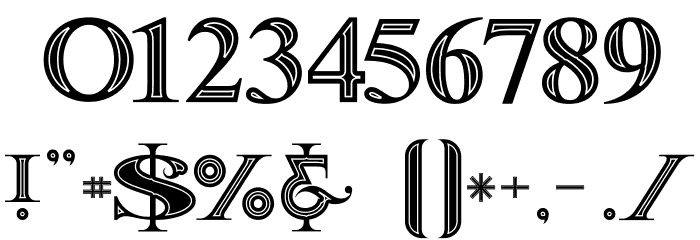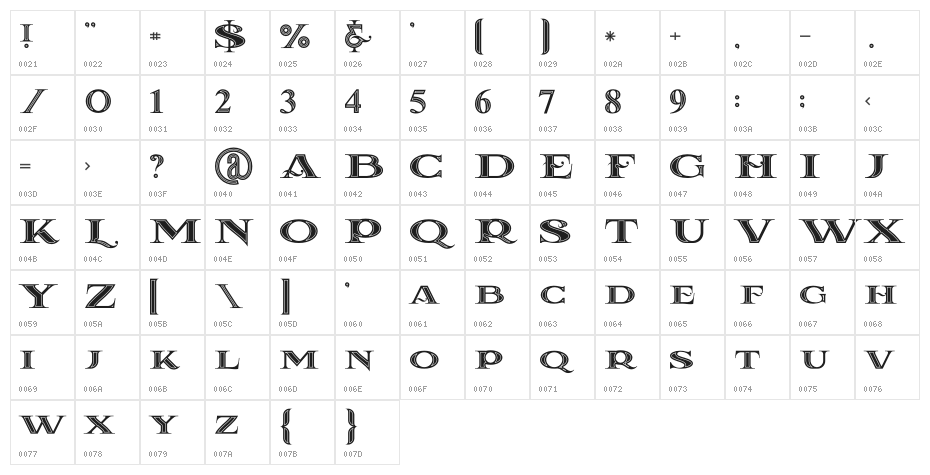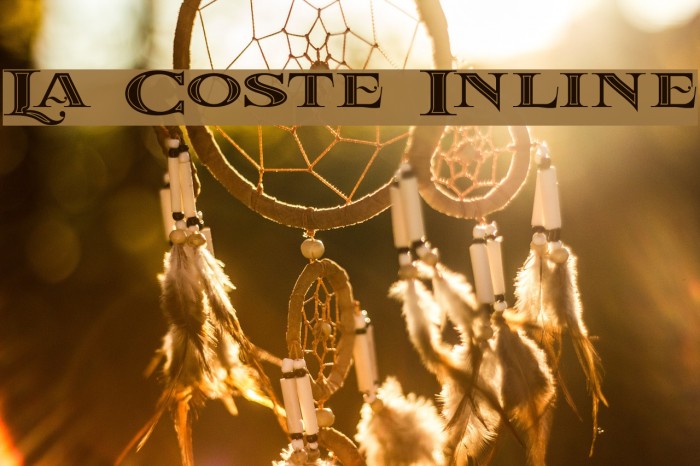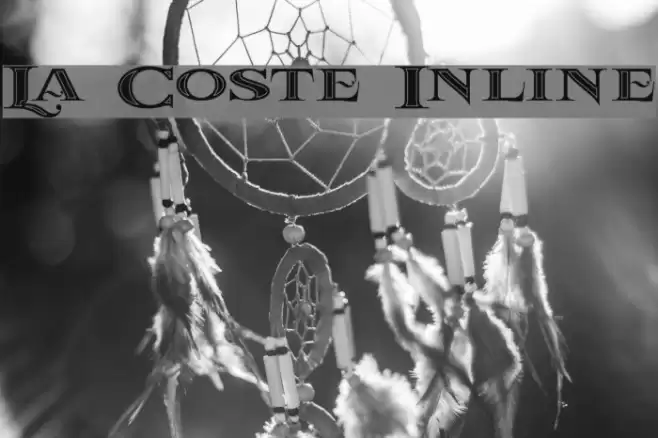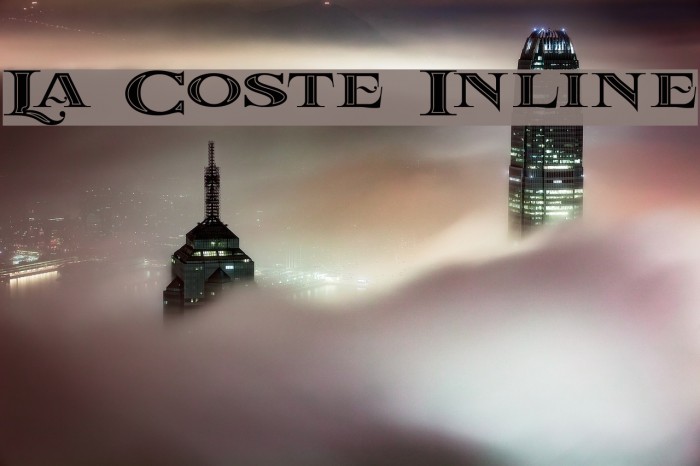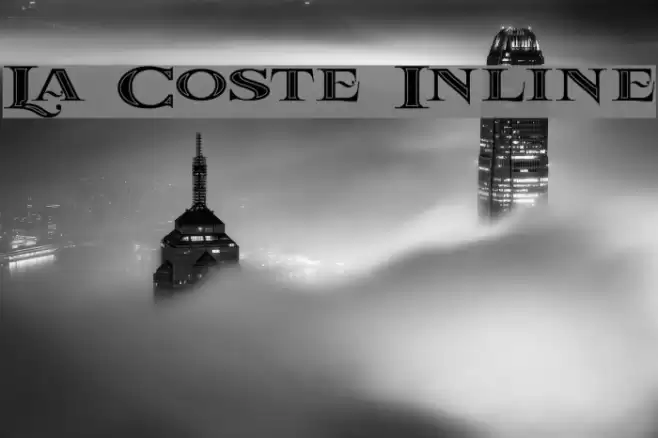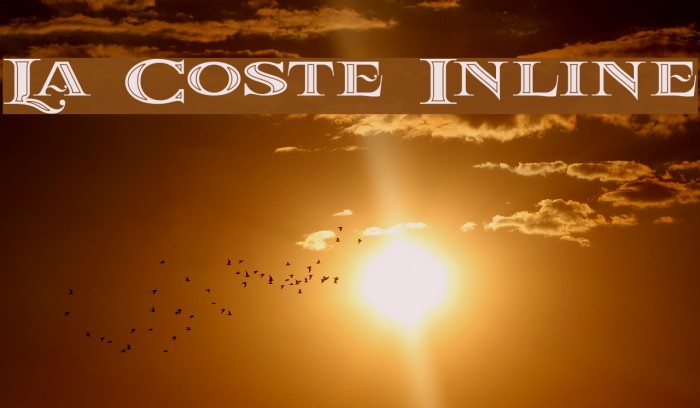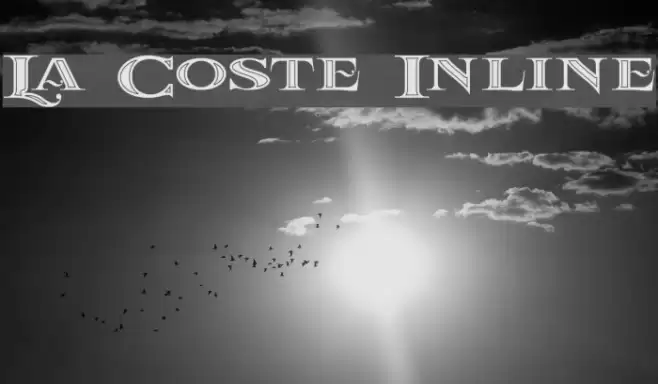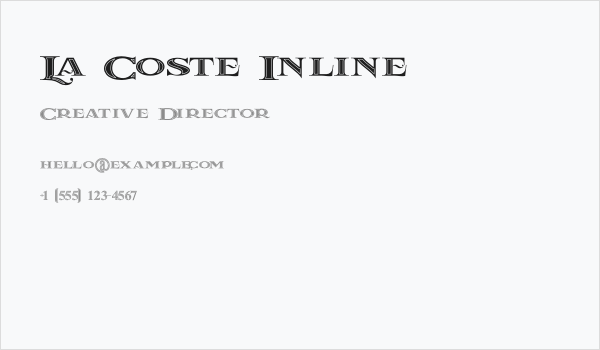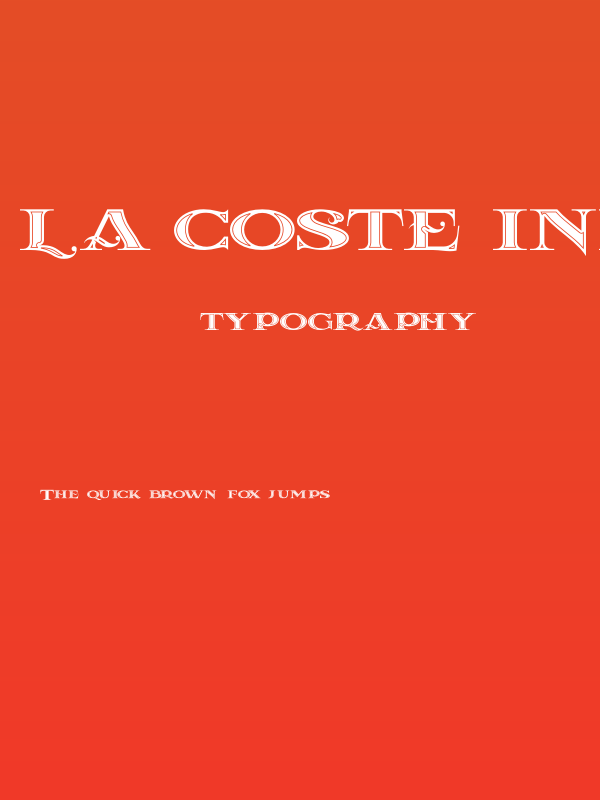
La Coste Inline Font
La Coste Inline Description
This font features a bold and decorative style with an inline design that adds a unique flair to each character. The uppercase letters are particularly striking, with sharp serifs and a strong presence. The inline detail provides a sense of depth and dimension, making it ideal for standout designs. The numbers and special characters maintain the same decorative quality, ensuring consistency across all elements. The overall look is both classic and modern, suitable for a variety of creative projects.
| Proposed Projects | Ideal for branding, posters, headlines, and any design requiring a bold, decorative touch. |